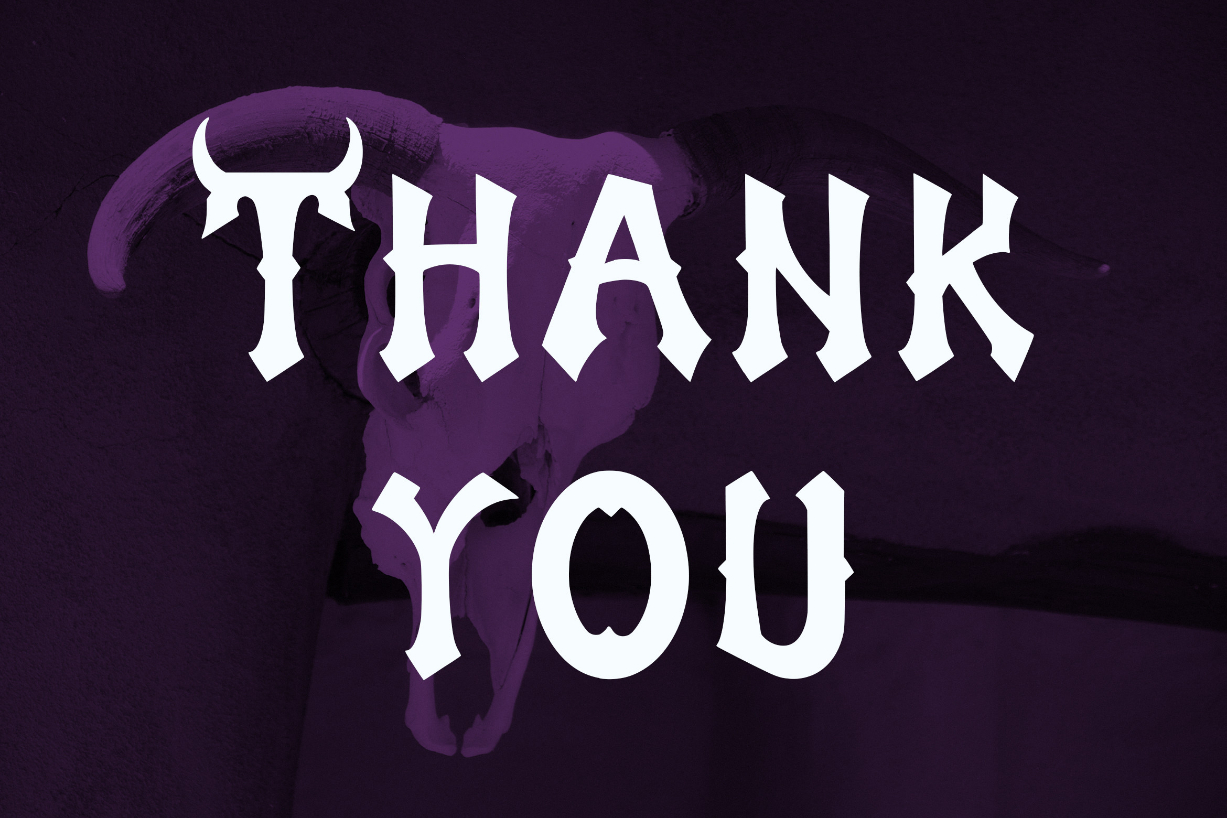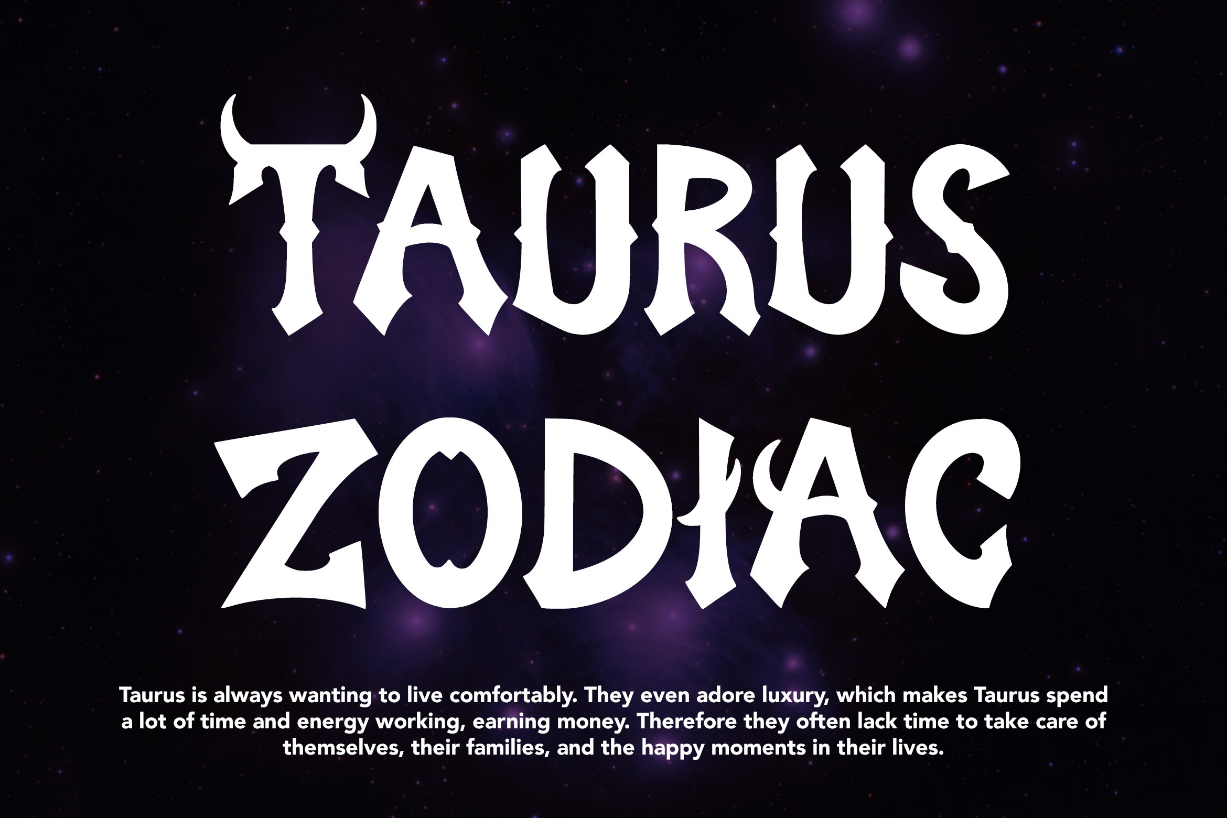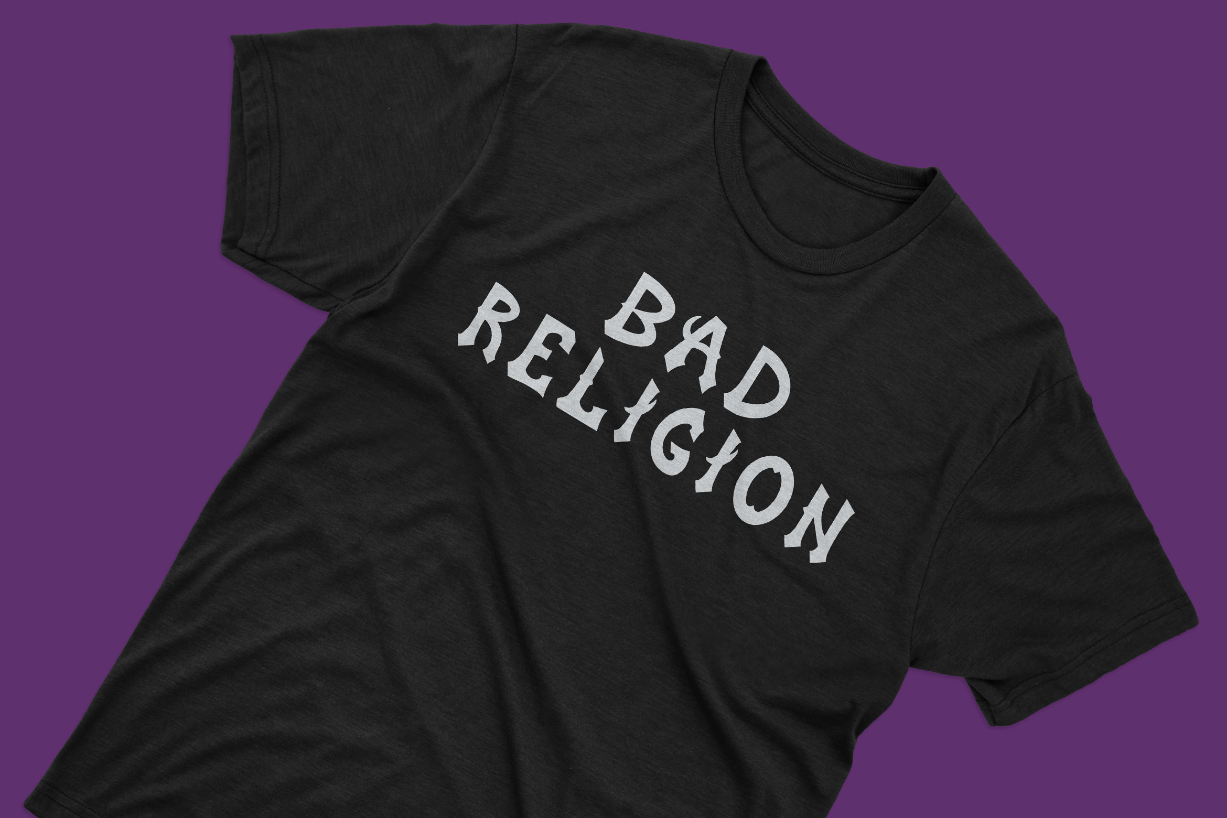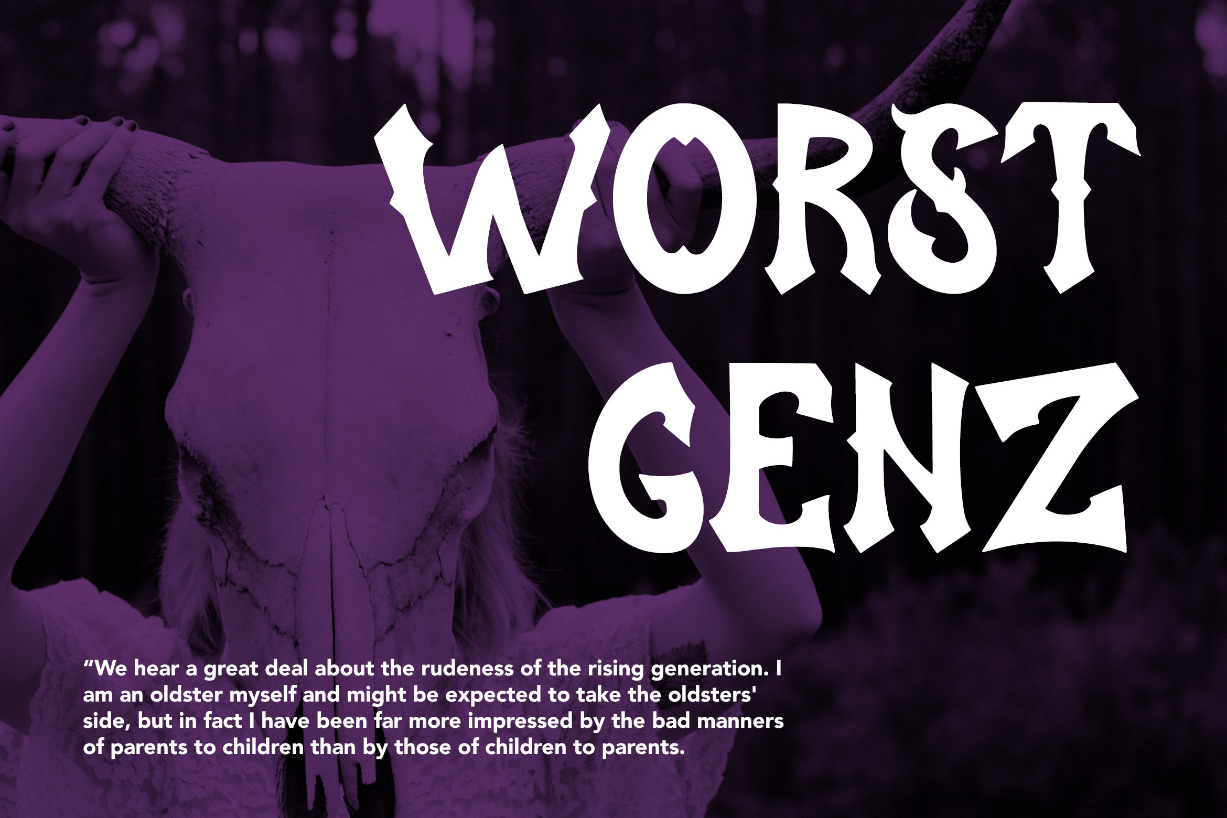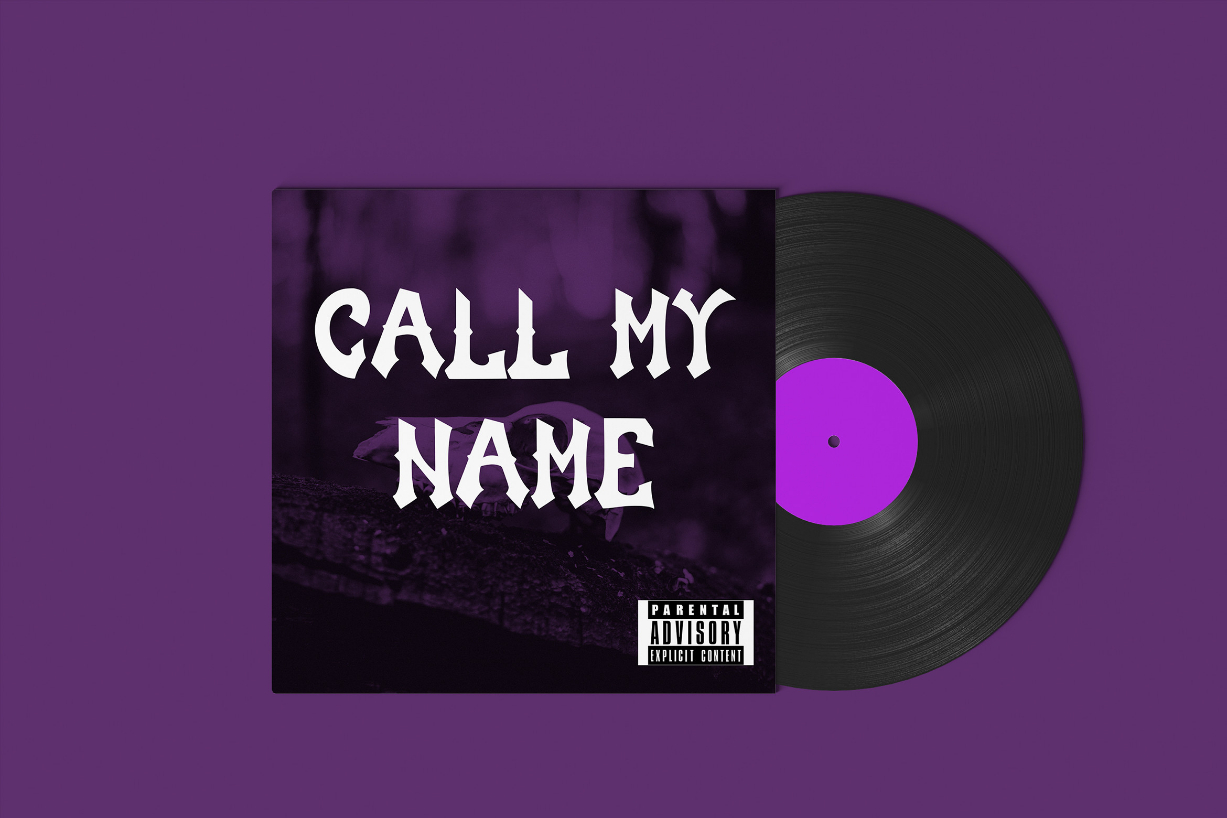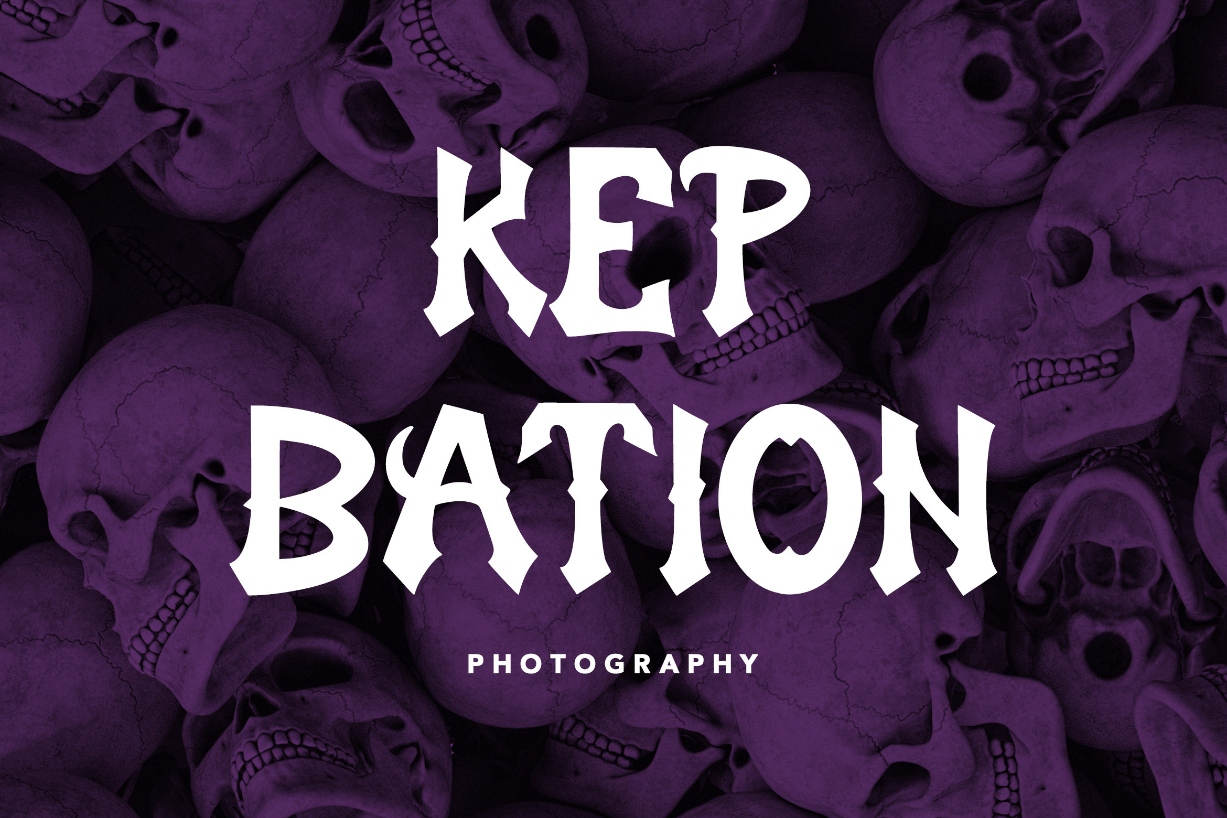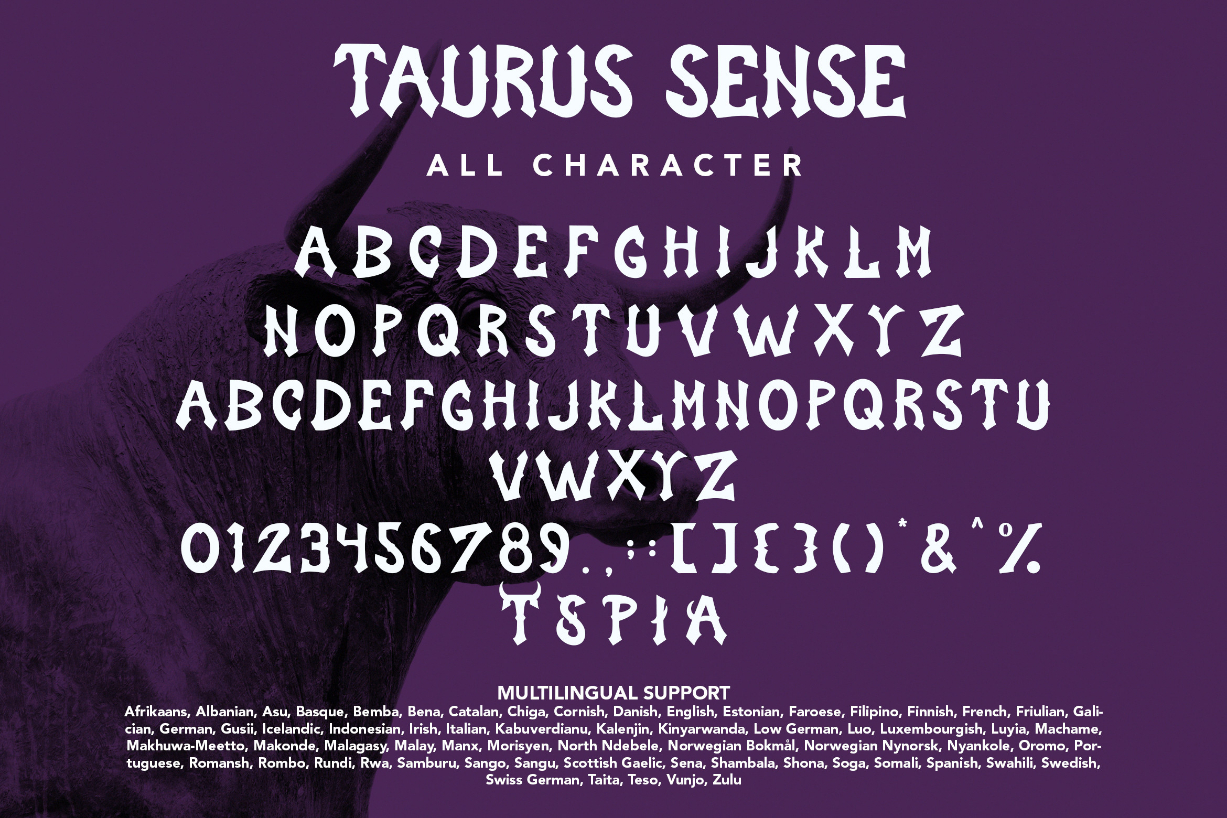
Taurus Sense Font
Taurus Sense is a cool and assertive blackletter font that is inspired by a gothic and horror style. Add it confidently to your projects, and you will love the results.